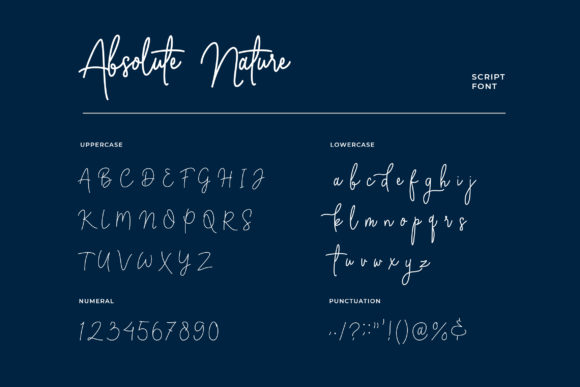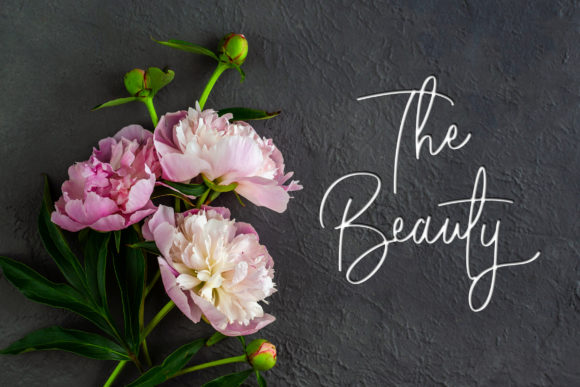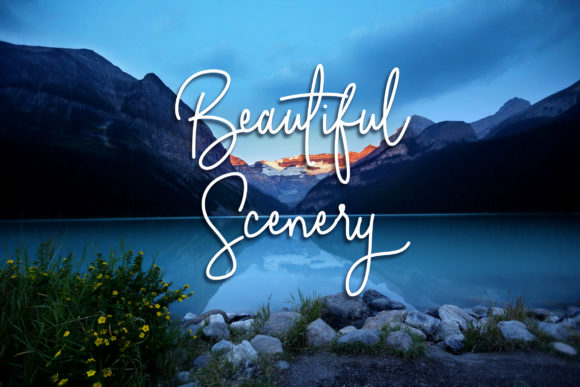
Introducing Absolute Nature Font: Elevate Your Designs with Sophistication
In the realm of typography, a font can make or break a design. For crafters, designers, and creative enthusiasts, finding the perfect typeface that embodies both elegance and versatility is a treasure. This is where Absolute Nature Font steps in, revolutionizing the way you approach your design projects. In this article, we’ll dive deep into the characteristics, applications, and benefits of using Absolute Nature Font, a sophisticated and thin handwritten font that is redefining the aesthetics of modern design.
The Essence of Absolute Nature Font
Absolute Nature Font stands out with its sophisticated and thin handwritten style. Its unique charm lies in its simplicity and the fluidity of its strokes, which bring a touch of elegance to any design. The font’s versatility makes it an ideal choice for a wide range of projects, from digital platforms to print media. Whether you’re crafting a website, social media post, quote, brand identity, magazine, or billboard, Absolute Nature Font adapts seamlessly, ensuring your message is conveyed with style and grace.
Key Features of Absolute Nature Font
- Sophisticated and Thin Handwritten Style: The font’s refined and delicate appearance lends a sophisticated air to designs, making them stand out.
- Versatility: Its adaptability across various mediums, from digital to print, makes it a go-to font for diverse design needs.
- Ease of Use: Designed to be user-friendly, Absolute Nature Font can be easily integrated into projects, saving time and effort.
- High Readability: Despite its thin strokes, the font maintains high readability, ensuring your message is effectively communicated.
Applications of Absolute Nature Font
Absolute Nature Font’s range of applications is vast, catering to various design needs:
- Websites: Elevate your website’s typography with a font that captures attention and exudes professionalism.
- Social Media: Stand out on social media platforms with eye-catching posts and stories that reflect your brand’s personality.
- Quotes and Typography: Add a touch of elegance to inspirational quotes, posters, and typographic artworks.
- Brand Design: Strengthen your brand’s visual identity with a font that communicates sophistication and refinement.
- Magazines and Editorials: Enhance the readability and aesthetic appeal of your magazine or editorial content.
- Billboards and Large Format Prints: Make a bold statement with clear, impactful messaging on billboards and large format prints.
Benefits of Using Absolute Nature Font
Incorporating Absolute Nature Font into your design projects comes with several advantages:
- Unique Aesthetic: Differentiate your designs with a unique and sophisticated look.
- Professionalism: Instantly elevate the professionalism of your projects.
- Flexibility: Use the font across various platforms and mediums without compromising on style or readability.
- Time-Efficiency: Its ease of use and versatility save time in the design process.
Absolute Nature Font is a game-changer for designers and crafters looking to infuse their projects with a sophisticated and elegant touch. Its versatility, readability, and unique aesthetic make it an indispensable tool in the world of design. Whether you’re working on digital content, print materials, or brand identities, Absolute Nature Font offers the perfect blend of style and functionality. Embrace the power of typography with Absolute Nature Font and witness your designs transform into captivating visual stories.
Unlock the full potential of your creative projects with Absolute Nature Font. Explore its capabilities and let your designs speak with elegance and sophistication.